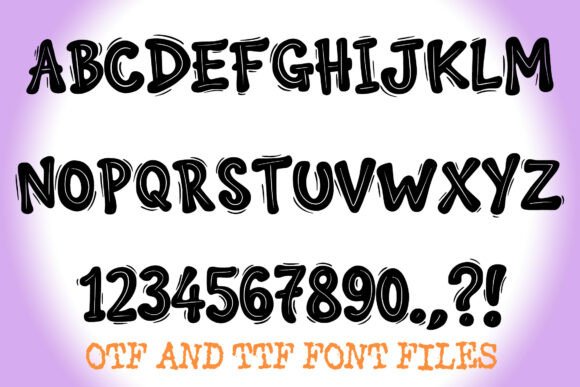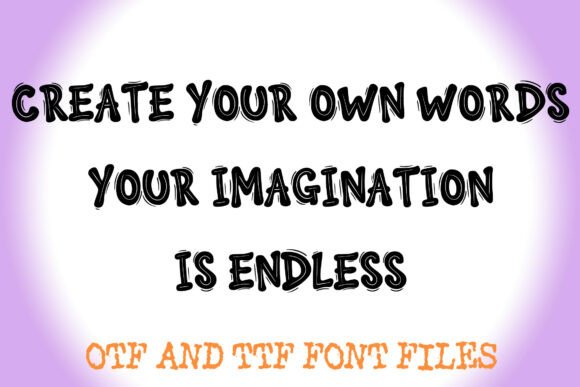
Introduction to Silly Cartoon Font
Remember the thrill of bringing a children’s book to life, or the excitement of crafting a birthday card for a loved one? For many creatives, there’s nothing quite like the joy of combining imagination and design to create something truly special. One key element that can elevate a project from ordinary to extraordinary is the right font – and that’s where the Silly Cartoon Font comes in.
This delightful design resource is perfect for anyone looking to add a touch of whimsy and personality to their creative project. With its high-quality, transparent background, and free download option, it’s a valuable asset for designers of all levels. Whether you’re working on a children’s book, a party invitation, or a social media graphic, the Silly Cartoon Font is sure to bring a smile to your face and inspire your creativity.
Key Features of Silly Cartoon Font
- High-quality vector design with a transparent background, ideal for creative projects
- Comes in a single font size, making it versatile for various text sizes and resolutions
- Perfect for use in illustrations, graphics, and other creative projects requiring a playful touch
- Supports a wide range of languages, making it a great design resource for international projects
- Includes a variety of characters, including uppercase and lowercase letters, numbers, and special symbols
- Designed with a fun and whimsical feel, making it a great choice for designers looking for a unique font
Honest Review: Silly Cartoon Font
I recently came across the Silly Cartoon Font, and I must say it’s an interesting addition to any design project. This free download is a great resource for designers who want to add some whimsy to their work.
Here are some of the things that work well with this font:
- High quality design that’s perfect for creative projects
- Transparent background, making it easy to use with any image
- Wide range of characters, including numbers and symbols
- ⚠️ Limited font size options, which may affect readability at larger sizes
- ⚠️ May not be suitable for formal or professional designs, due to its playful nature
Overall, I think the Silly Cartoon Font is a great addition to any designer’s toolkit. It’s a fun and creative way to add some personality to your projects, and the transparent background makes it easy to use. Just be aware of its limitations, and use it sparingly in formal designs.
Common Use Cases for Silly Cartoon Font
Silly Cartoon Font is commonly used for creating fun and engaging designs, such as social media graphics, posters, and flyers. It’s also perfect for adding a playful touch to children’s educational materials and party invitations.
Tips for Getting the Most Out of Silly Cartoon Font
To get the most out of Silly Cartoon Font, use it in combination with other design elements, such as bold colors and fun graphics. Experiment with different font sizes and styles to create a unique and eye-catching design. Also, be sure to use the font in a way that complements your creative project and doesn’t overpower it.